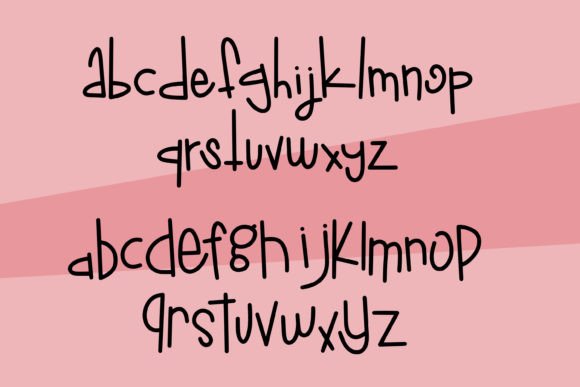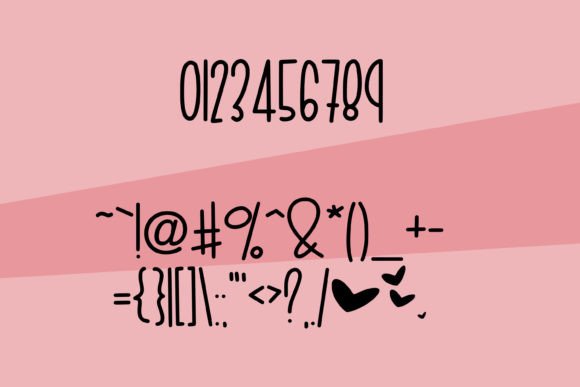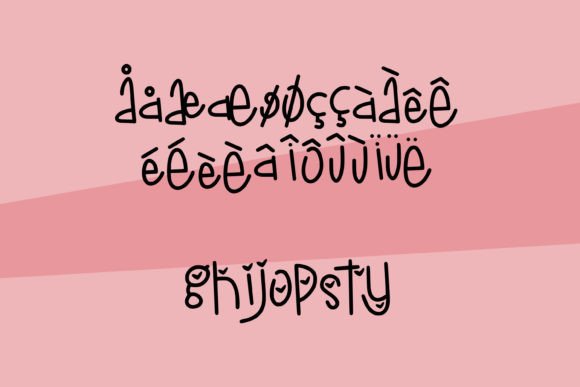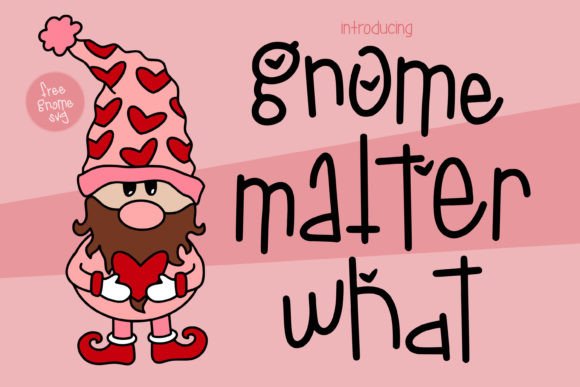
Gnome Matter What Font: Add a Touch of Whimsy to Your Designs
Are you tired of using the same old fonts in your designs? Look no further than Gnome Matter What, a charming and playful font that’s sure to bring a smile to your face. This delightful font is perfect for designers and crafters who want to add a touch of personality to their projects. In this article, we’ll take a closer look at Gnome Matter What and explore its many uses.
What is Gnome Matter What Font?
Gnome Matter What is a whimsical font that’s inspired by the cute and quirky world of gnomes. With its heart-inspired accents and playful style, this font is sure to capture the hearts of designers and crafters alike. Whether you’re creating cards, DIY crafts, or adorable signage, Gnome Matter What is the perfect choice.
Key Features of Gnome Matter What Font
- Whimsical design: Gnome Matter What features a unique and playful design that’s sure to add a touch of whimsy to your designs.
- Heart-inspired accents: The font’s heart-inspired accents add a dose of charm and personality to your projects.
- Perfect for Valentine’s Day: With its heart-inspired design, Gnome Matter What is the perfect font for Valentine’s Day projects.
- Versatile: This font can be used for a wide range of projects, from cards and DIY crafts to signage and more.
Uses for Gnome Matter What Font
Gnome Matter What is a versatile font that can be used for a wide range of projects. Here are some ideas to get you started:
- Valentine’s Day cards and projects: Add a touch of love and whimsy to your Valentine’s Day cards and projects with Gnome Matter What.
- DIY crafts: Use Gnome Matter What to add a personal touch to your DIY crafts, such as scrapbook pages, journal entries, and more.
- Signage: Create adorable signage for your business or home with Gnome Matter What.
- Social media graphics: Add a touch of personality to your social media graphics with Gnome Matter What.
Tips for Using Gnome Matter What Font
Here are some tips for using Gnome Matter What in your designs:
- Pair with other fonts: Experiment with pairing Gnome Matter What with other fonts to create a unique and interesting look.
- Use in combination with images: Use Gnome Matter What in combination with images of gnomes, hearts, and other whimsical elements to create a cohesive look.
- Experiment with colors: Try out different colors and color combinations to add an extra touch of personality to your designs.
| Font Name | Gnome Matter What Font |
| Author | kitaleigh |
Gnome Matter What is a charming and playful font that’s sure to bring a touch of whimsy to your designs. With its heart-inspired accents and versatile design, this font is perfect for designers and crafters who want to add a personal touch to their projects. Whether you’re creating cards, DIY crafts, or adorable signage, Gnome Matter What is the perfect choice. So why not give it a try and see how it can bring your designs to life?
- What is Gnome Matter What font?: Gnome Matter What is a whimsical font that’s inspired by the cute and quirky world of gnomes.
- What are the key features of Gnome Matter What font?: The font features a unique and playful design, heart-inspired accents, and is perfect for Valentine’s Day projects.
- What can I use Gnome Matter What font for?: You can use Gnome Matter What for a wide range of projects, including cards, DIY crafts, signage, and more.